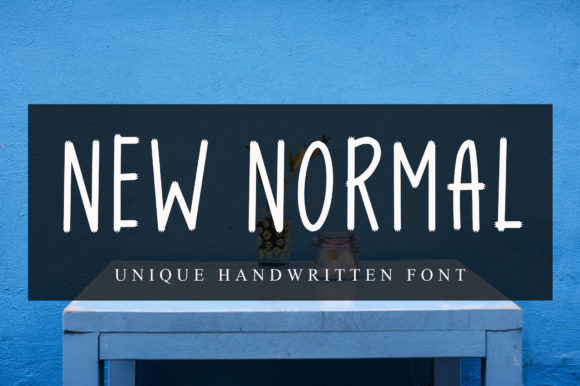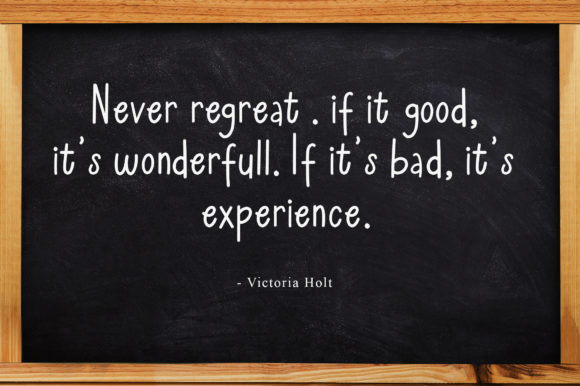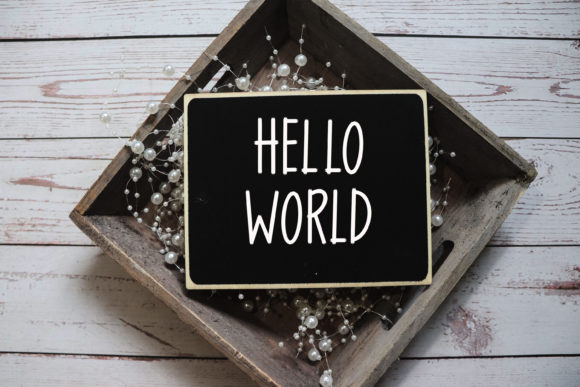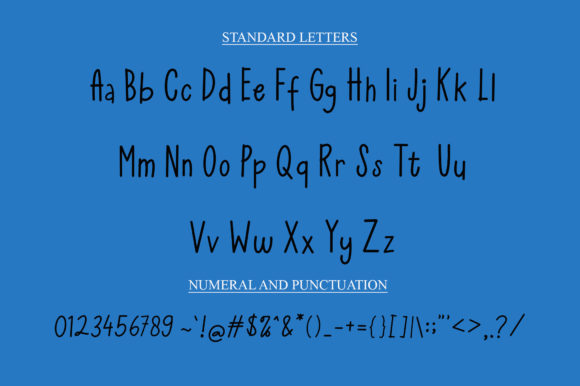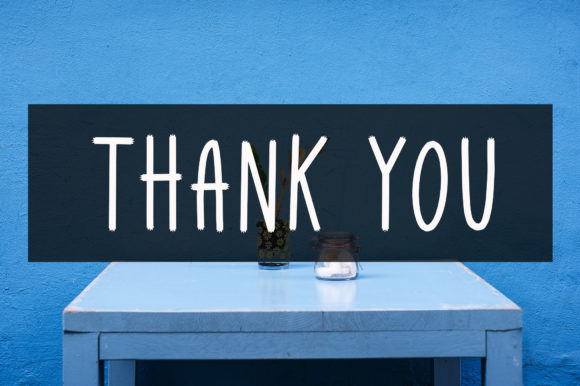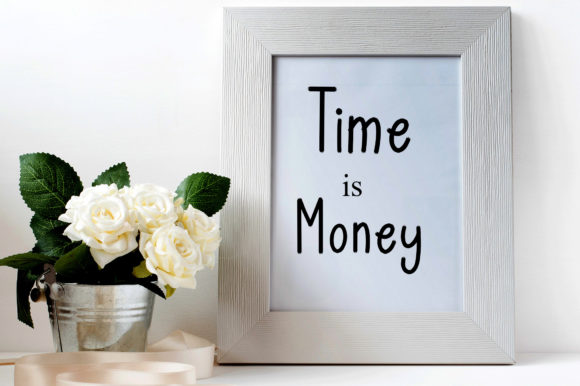
New Normal Font
About New Normal Font
New Normal is a thin and clean handwritten font, that can be used for all chalkboard quotes or teaching material! Its authentic look and feel will add a personal and realistic feel to your designs.